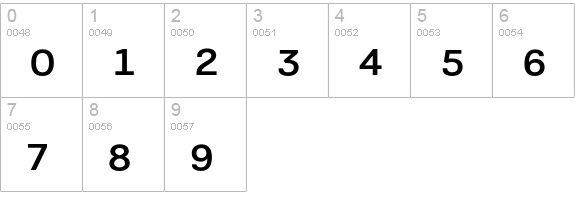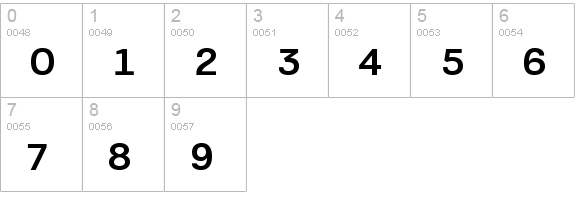
PFEncoreSansPro-Medium is a balanced, medium-weight variant in the PFEncoreSansPro typeface family \xE2\x80\x94 well suited to sub-headlines, navigation, and balanced editorial work.
PFEncoreSansPro-Medium is a versatile and modern font that exudes style and sophistication. With its clean lines and bold presence, this font is perfect for a wide range of design projects, from branding to editorial design. The Medium weight strikes the perfect balance between elegance and readability, making it ideal for headers, titles, and other prominent text elements. The best part is that PFEncoreSansPro-Medium is available for free! You can download this fantastic font at FontsMarket.com and enhance your designs with its sleek and contemporary look. Don't miss out on the opportunity to add this premium font to your collection without breaking the bank. Download PFEncoreSansPro-Medium today and elevate your design projects to the next level!